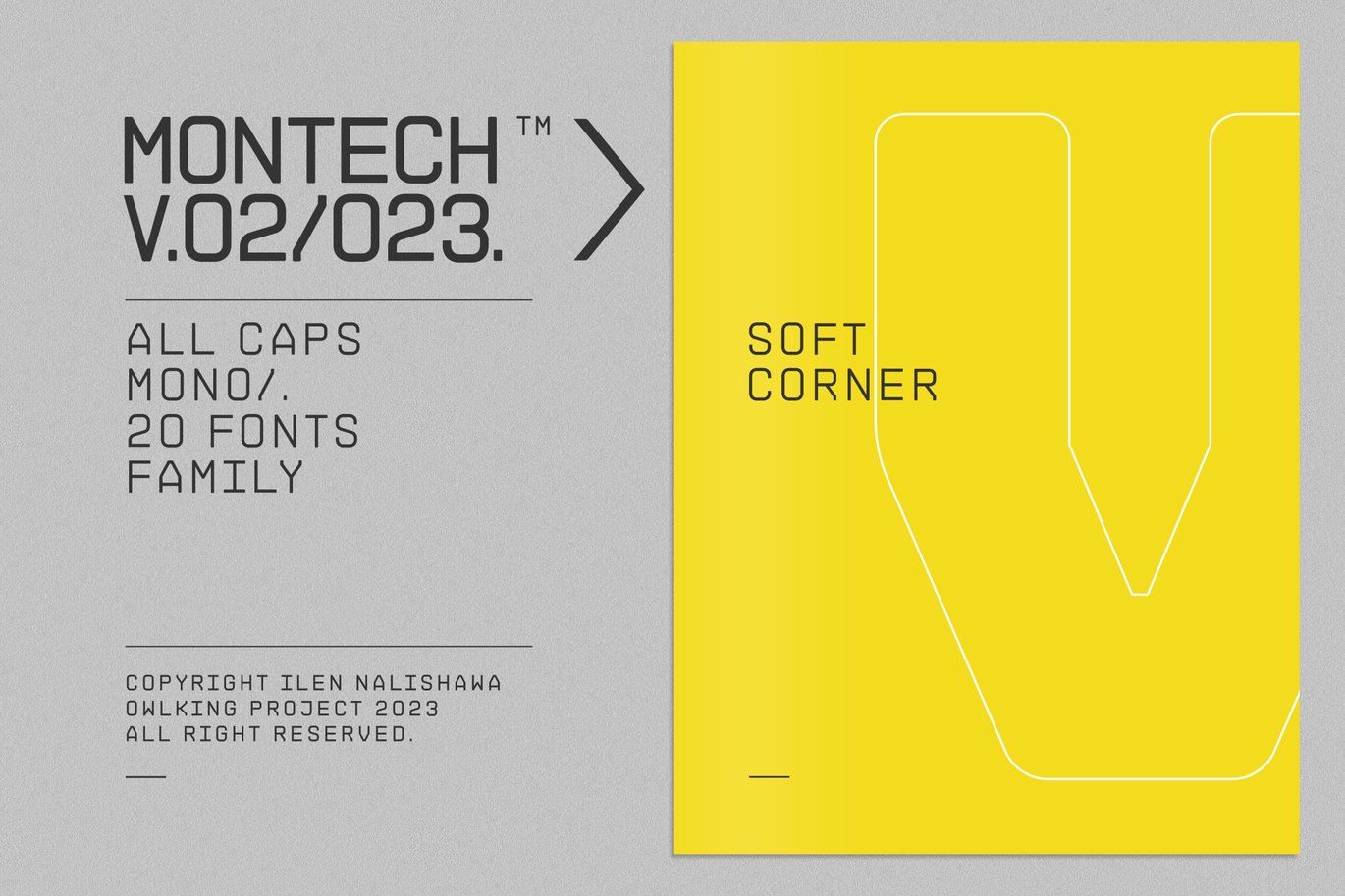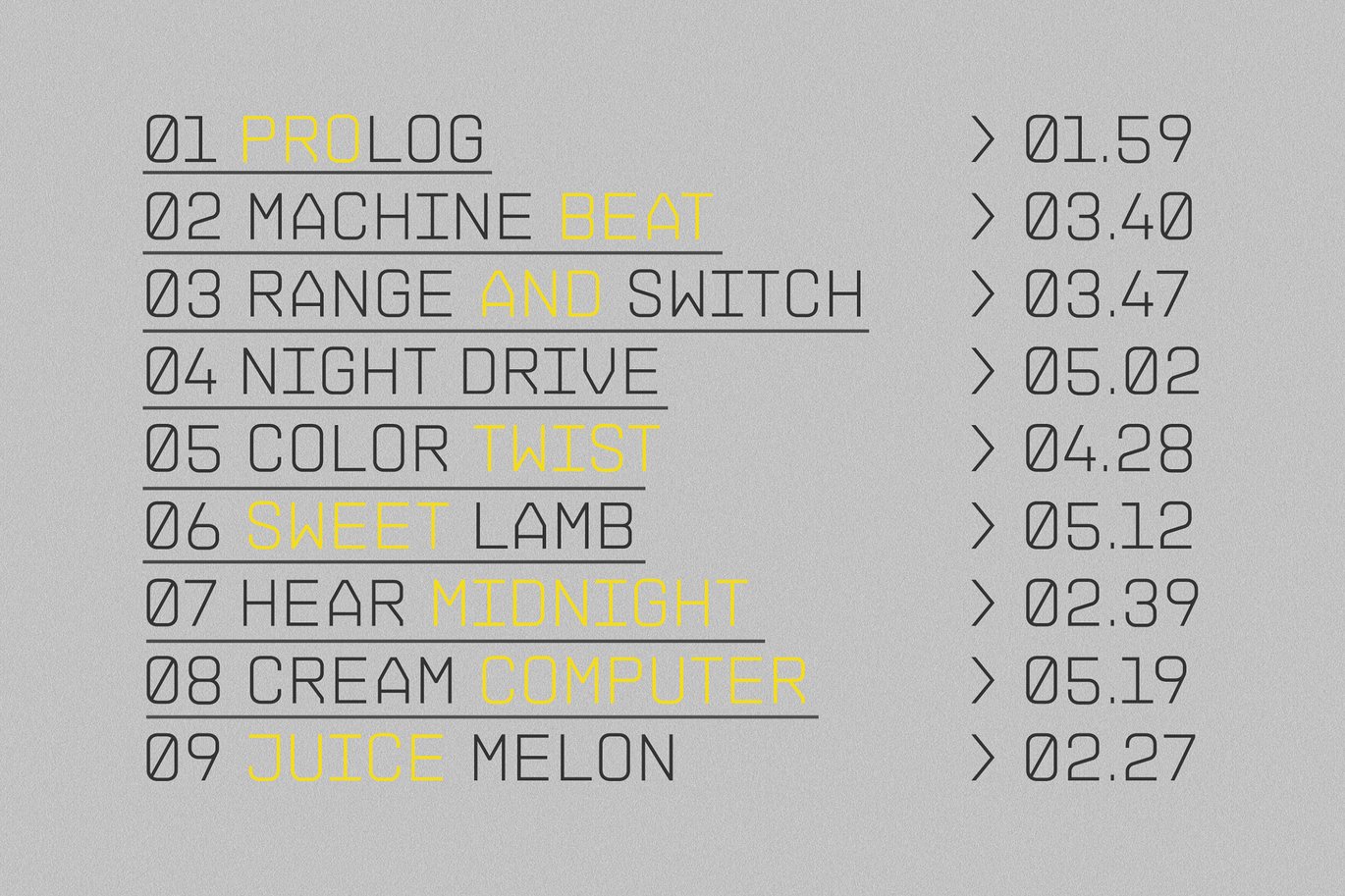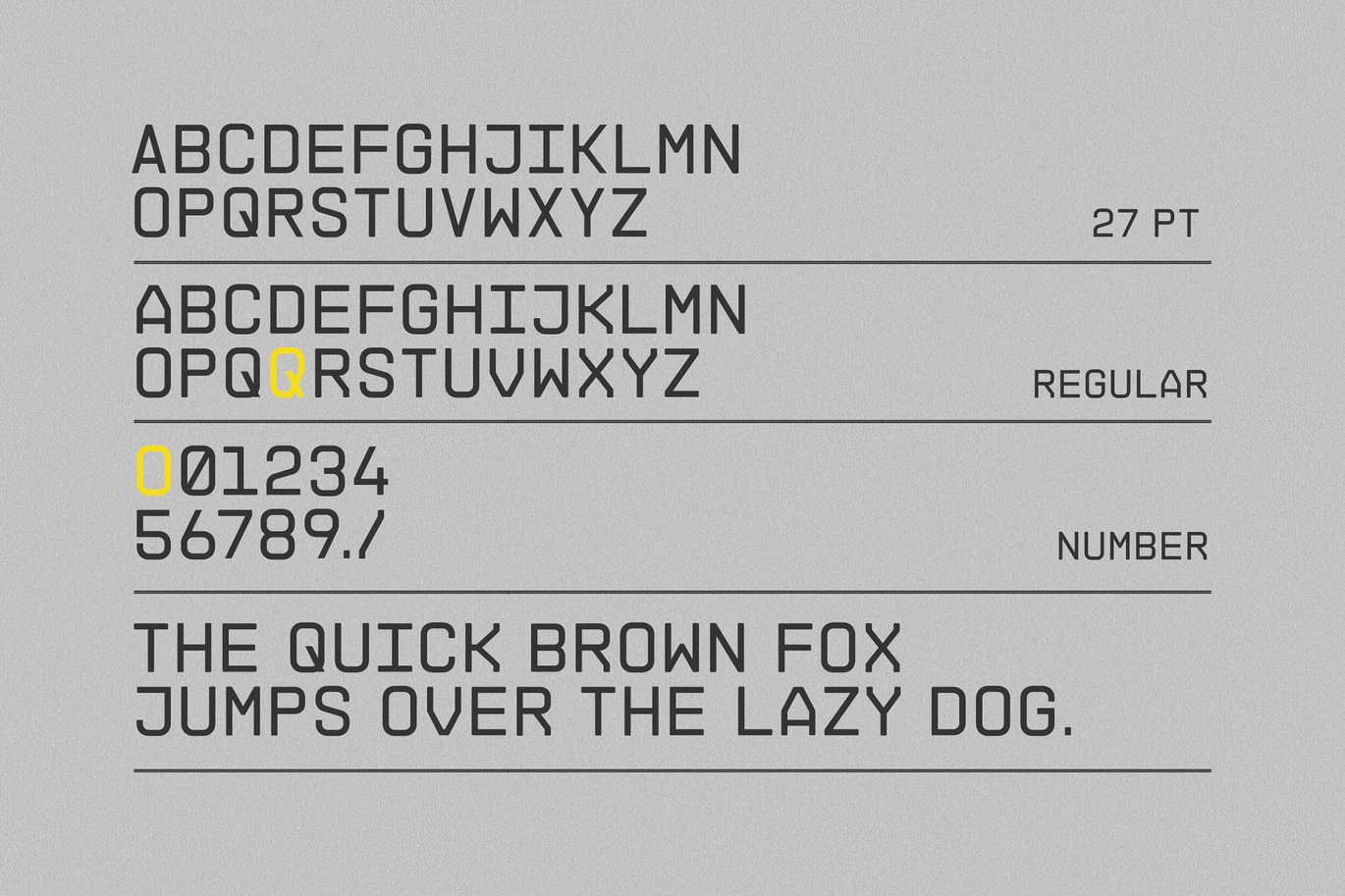
MONTECH V02 Font is a versatile typeface ideal for various projects, including Sans-Serif, logos, branding, posters, blog headers, advertisements. The free version includes a full set of uppercase and lowercase letters, available in OTF, TTF format.
MONTECH V02 Font